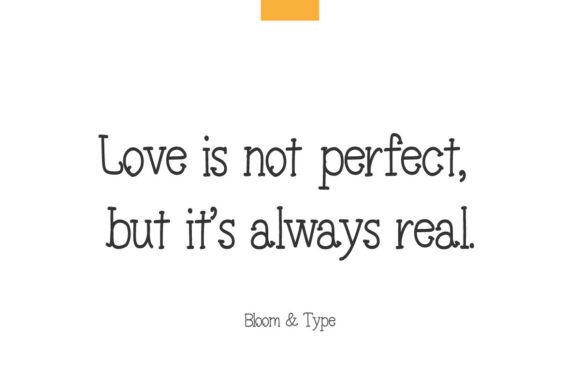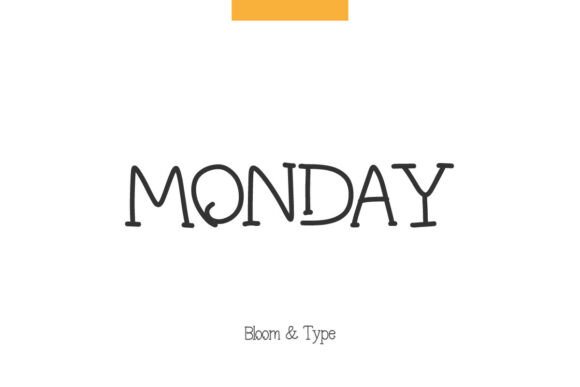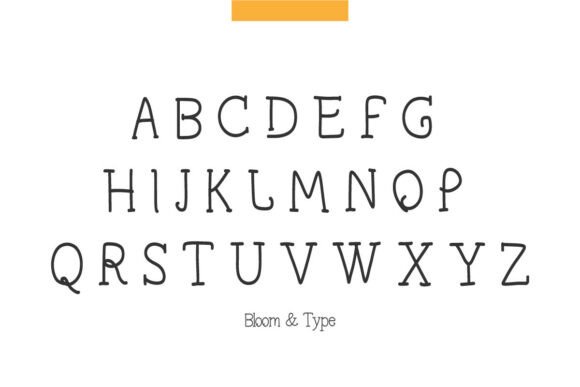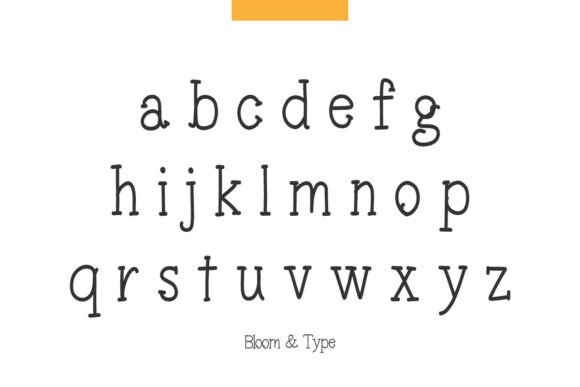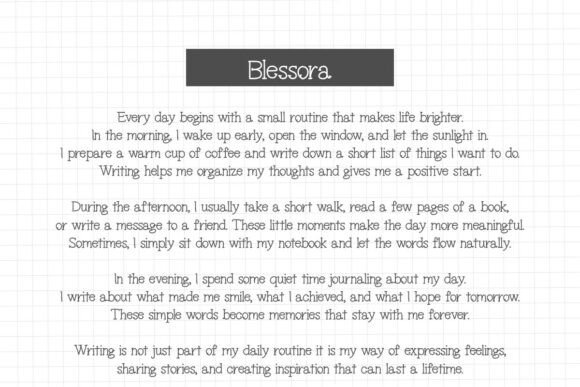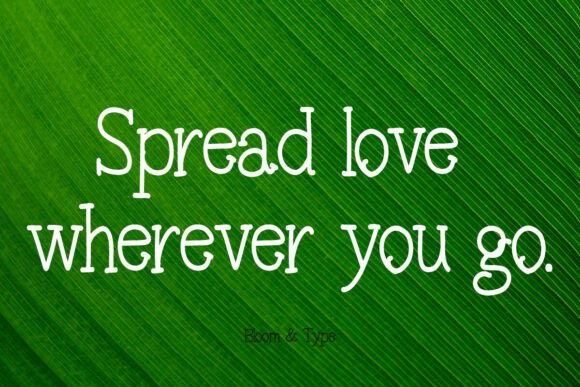
Blessora Font: A Charming Handwritten Font for Creative Projects
Are you looking for a font that can add a touch of warmth and personality to your designs? Look no further than Blessora, a charming handwritten font that blends playfulness with elegant simplicity. In this article, we’ll explore the features and benefits of Blessora, and why it’s an ideal choice for designers and crafters.
A Warm and Whimsical Feel
Blessora’s letters feature soft curves and subtle decorative tails, creating a warm, whimsical feeling that’s perfect for heartfelt messages and creative branding. The font’s slightly imperfect, human touch makes it feel natural, like notes penned with care in a journal or a personal letter. This unique character makes Blessora stand out from other fonts, and it’s sure to capture the attention of your audience.
Designed with versatility in mind, Blessora works beautifully across digital and print projects — from logos, quotes, and greeting cards to packaging and social media graphics. Whether you’re working on a personal project or a client’s, Blessora’s delightful character adds a touch of personality that feels authentic and inviting.
Multilingual Support
In today’s global design landscape, it’s essential to have a font that can support multiple languages. Blessora fits the bill, with support for Spanish, French, German, Portuguese, and Italian. This makes it an ideal choice for global designers who need a font that can adapt to different languages and cultures.
- A–Z uppercase & lowercase letters
- Numbers & punctuation
- Multilingual support (Spanish, French, German, Portuguese, Italian)
- Elegant and creative handwritten style
- Easy to use and highly legible
Blessora is an excellent choice for designers and crafters who want to add a personal touch to their projects. Whether you’re creating wedding invitations, branding materials, or social media graphics, Blessora’s charming handwritten style is sure to impress. Its elegance and simplicity make it perfect for a wide range of projects, from formal to informal.
Why Choose Blessora?
So, why choose Blessora over other fonts? Here are just a few reasons:
- Unique and charming handwritten style
- Versatile and adaptable to different projects and languages
- Easy to use and highly legible
- Multilingual support for global designers
In conclusion, Blessora is a charming handwritten font that’s perfect for designers and crafters who want to add a touch of warmth and personality to their projects. Its elegant simplicity, versatility, and multilingual support make it an ideal choice for a wide range of projects. With its soft curves, subtle decorative tails, and slightly imperfect human touch, Blessora is sure to capture the attention of your audience and leave a lasting impression.